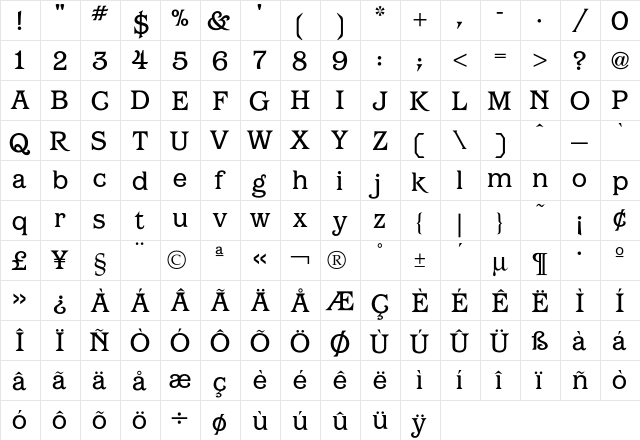
Barcelona Book
Design Context for Barcelona Typeface
Barcelona offers clean, dependable letterforms without strong stylistic allegiance, making it a practical choice for designers who need flexibility.